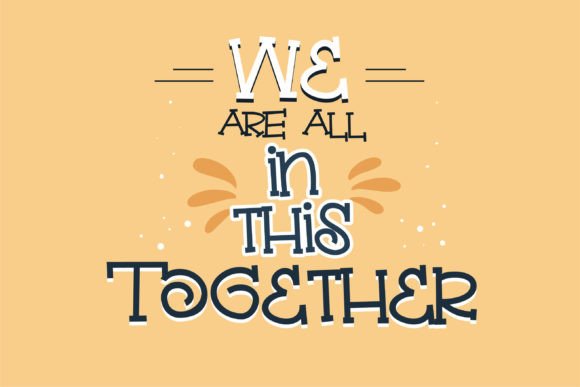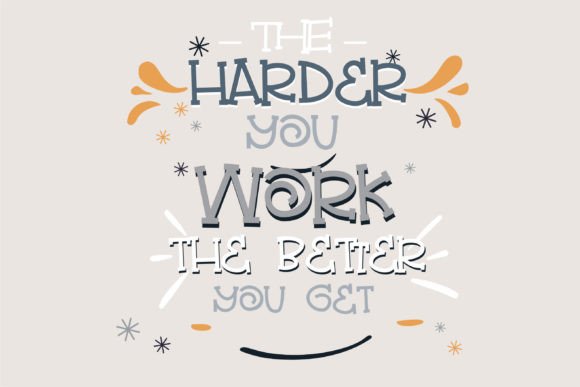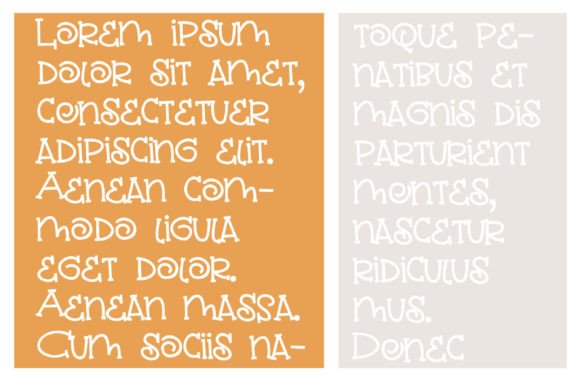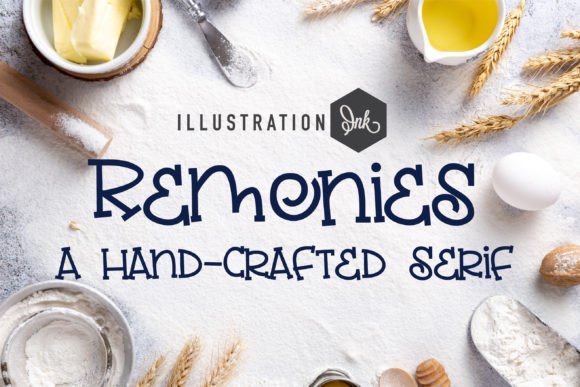
Introduction to Remonies Font
This simple hand-crafted serif has a few swirls, crafty slab serifs, and no descenders in the lowercase.
It is perfect for projects that need an equally solemn and playful look .